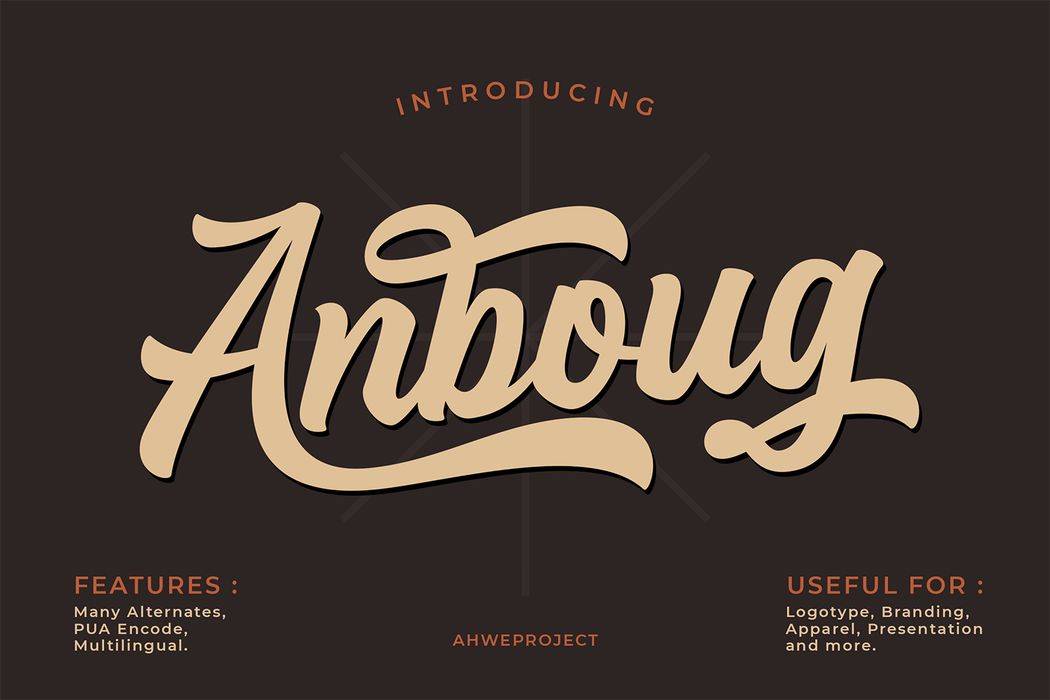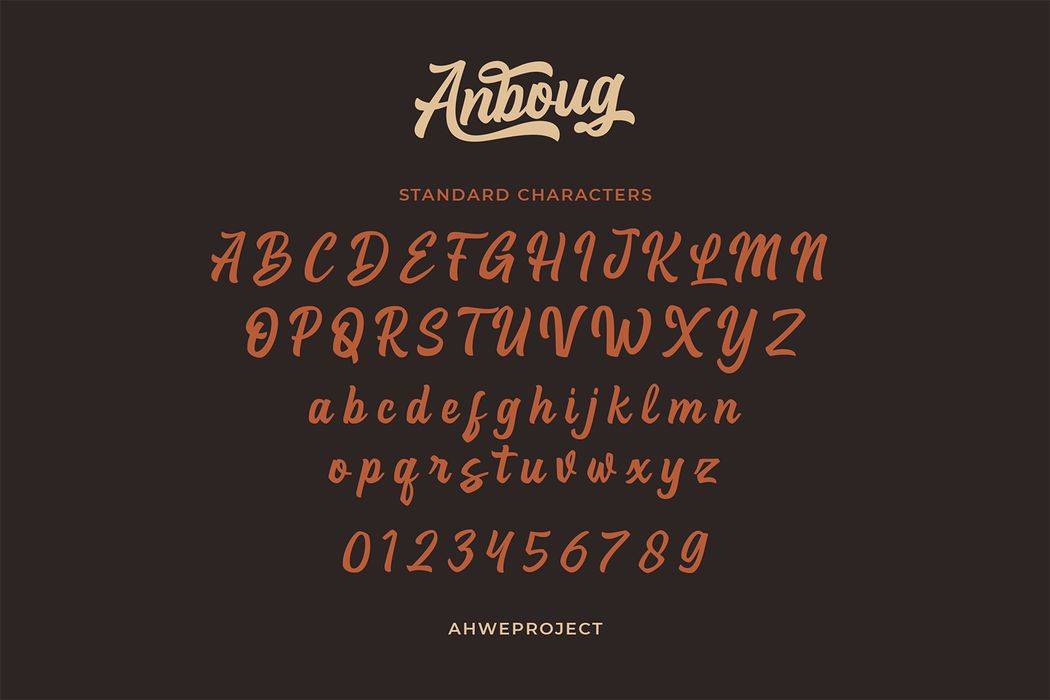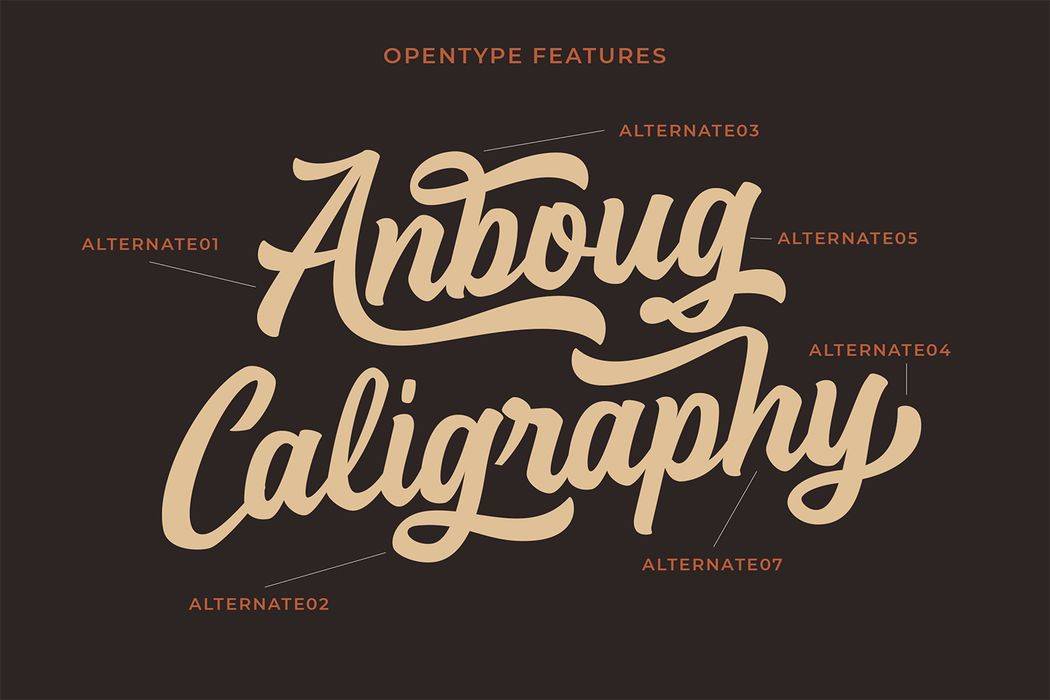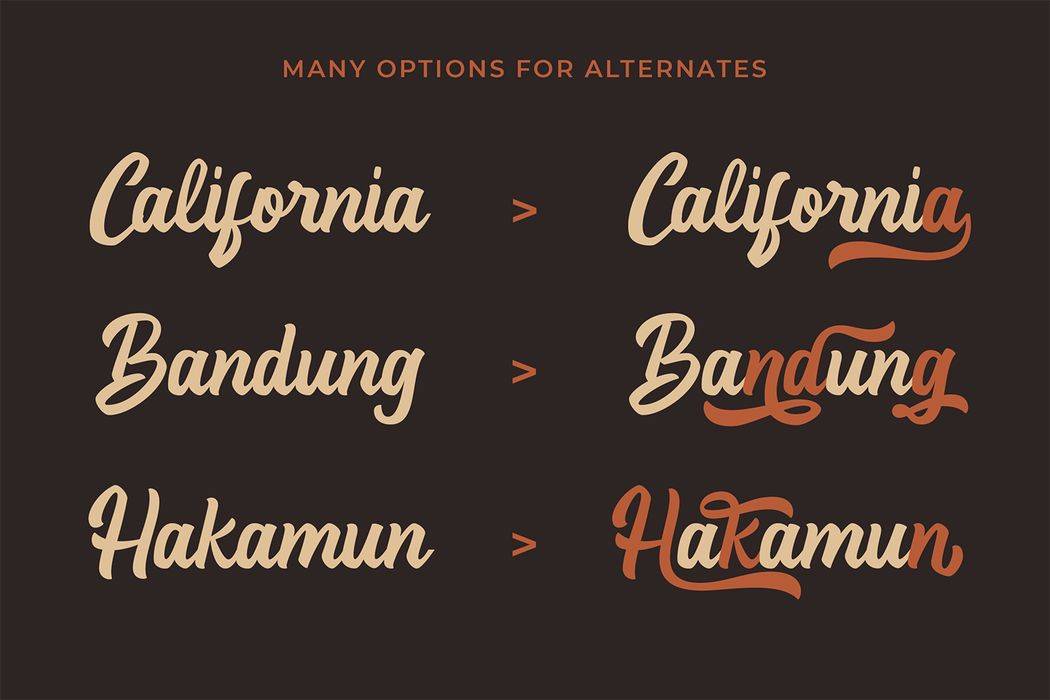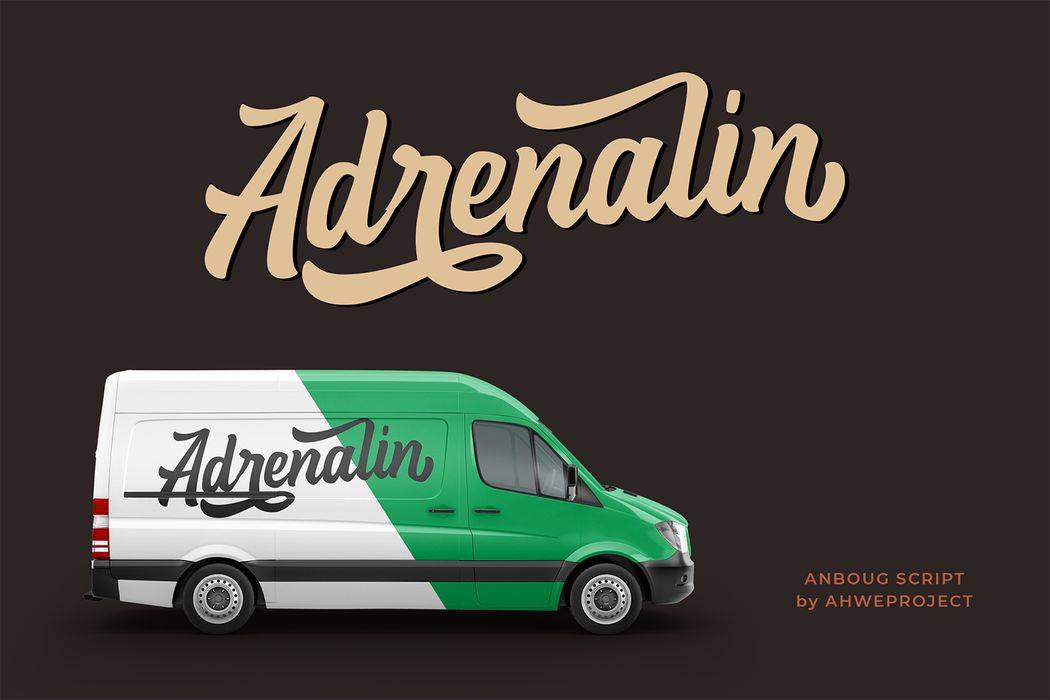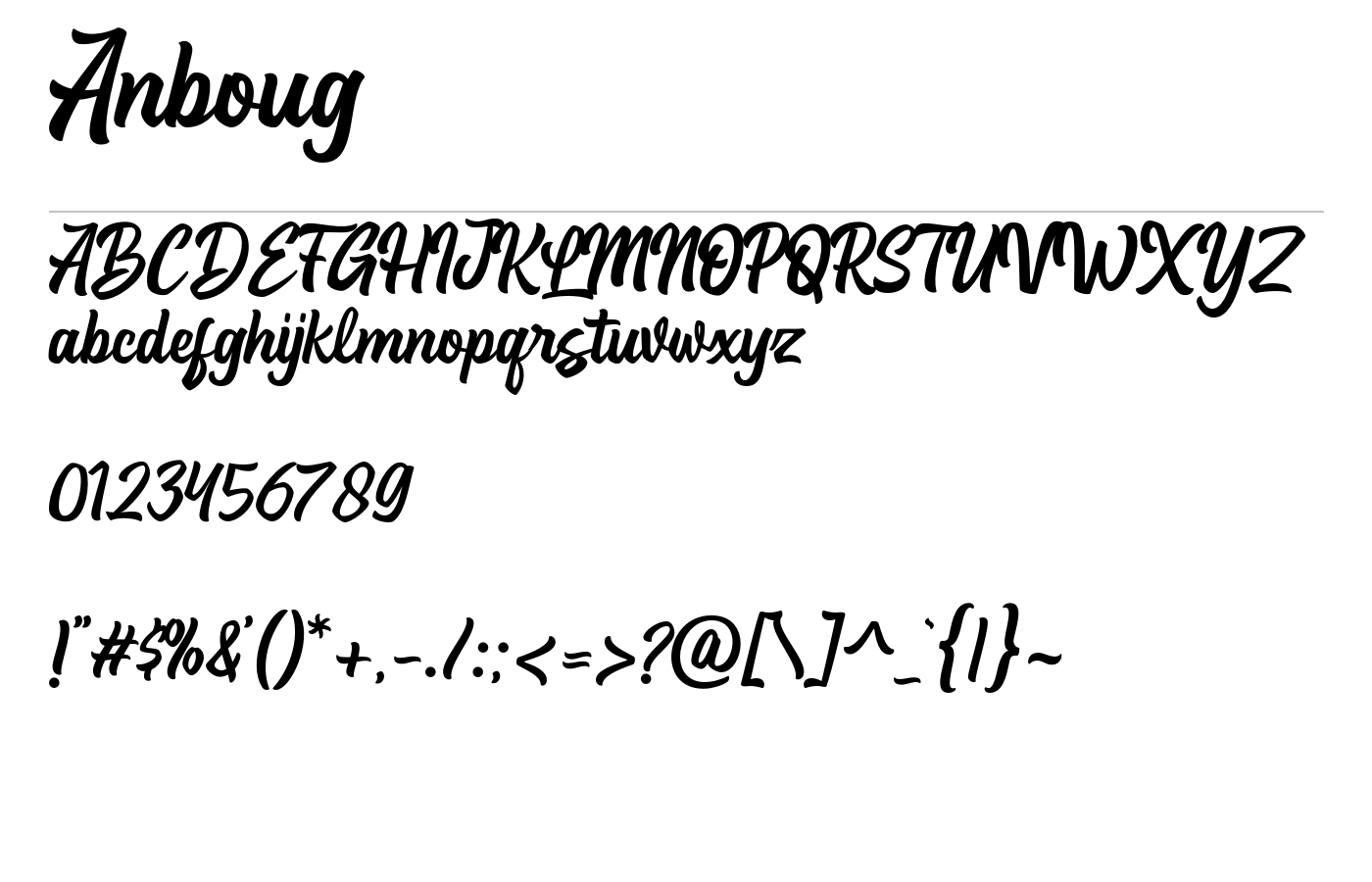
Anboug is a lively script font with a bold, flowing style that mimics elegant handwriting. It features smooth, slightly condensed letterforms with a playful yet refined feel, making it well-suited for creative branding, logos, and headlines that seek a personal and dynamic touch. Its confident strokes and clear readability also allow it to shine in invitations and promotional materials where a stylish, informal vibe is desired.
Anboug Font
About Anboug Font
| Font family | Anboug Font |
| Designer | Dida Ahluddin |